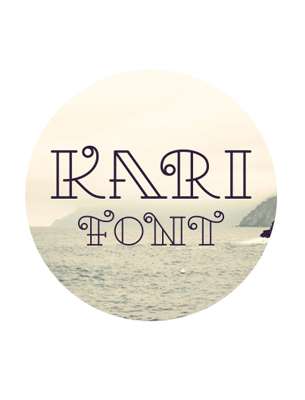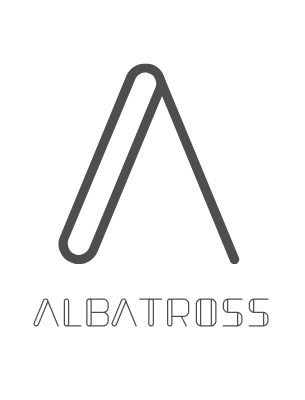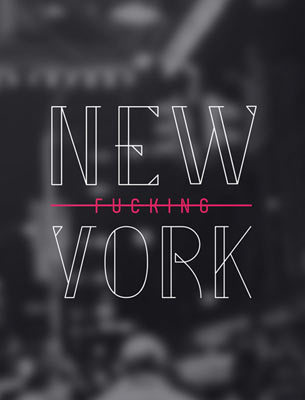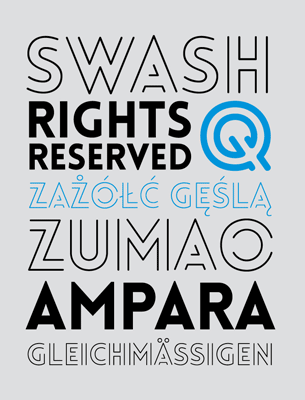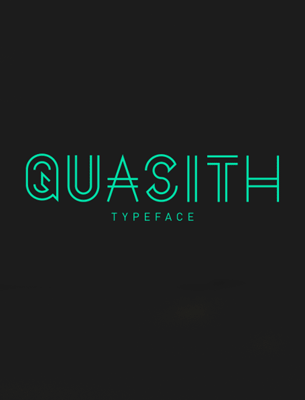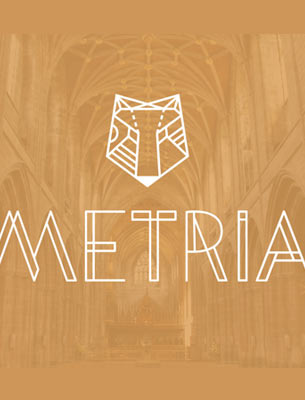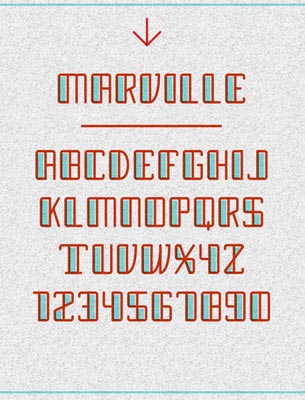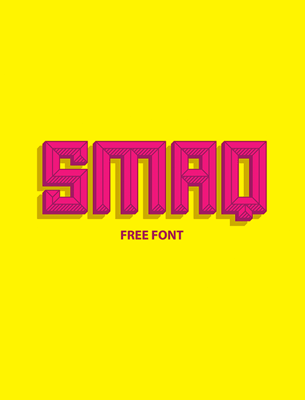
• National Park is a free font designed to mimic typeface of the National Park Service signages.
National Park
• Library 3 am is an outline display font where the letters are constructed with one line.
Library 3 am
• Deux or "two" in French, is a cool condensed double-line that you can download for free.
Deux
• Kanji is a free to download display font that was inspired by the Japanese Kanji characters. According to the designer Pedro Azedo, he was fascinated by the kanji characters that are looking almost like a logo.
Kanji
• Argon is a classy display typeface that was constructed with lines that formed maze-like structures, and it reminded me of Mexico's Olympic logo in 1968.
Argon
Designer: Alcir Heidemann
Athena Free Font
Designer: Andreas Leonidou
Smaq Typeface
• Styles: 3 (outline, inline and fill)
Designer: Thomas Vanhuyse
Marville
Designer: Jake Lunde
Metria
Designer: Egidio Filippetti
Quasith
Designer: Marie-Michelle Dupuis
Fancy Me
Designer: Renzler Design
Remade by FontFabric
Lovelo Font
Foundry: Regular Bold Italic
Albatross
Designer: Javier Rivero
Kari Free Font